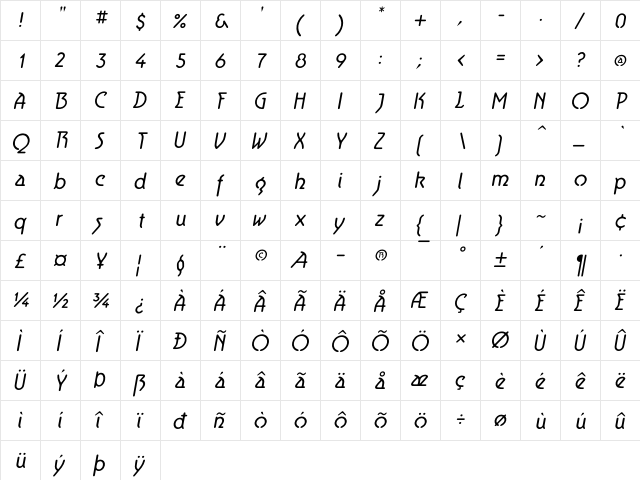
Aerolite Italic Regular
Design Context for Aerolite Italic Typeface
Aerolite Italic takes a measured approach to typography — its balanced proportions and neutral character make it a reliable workhorse for both digital and print work. The dynamic lean of this cut emphasises speed and emphasis in any layout.
Pro Tip: Try Aerolite Italic for annotation and caption copy alongside an upright companion — the contrast in angle creates a dynamic but ordered typographic system.